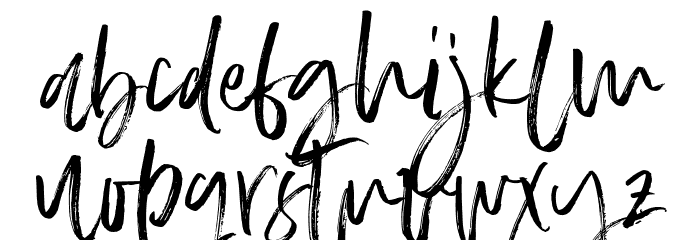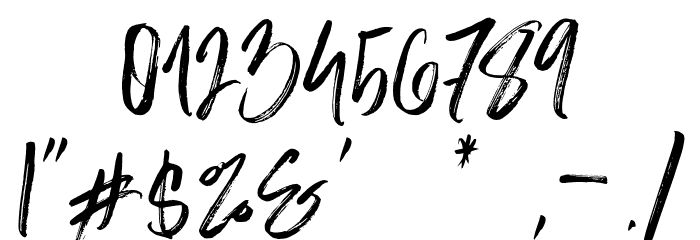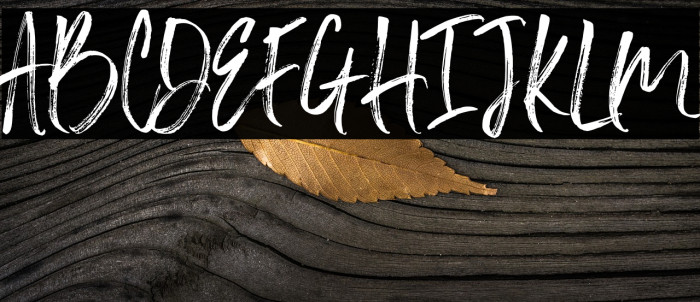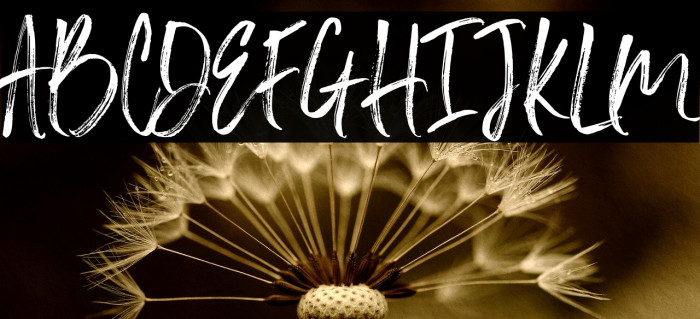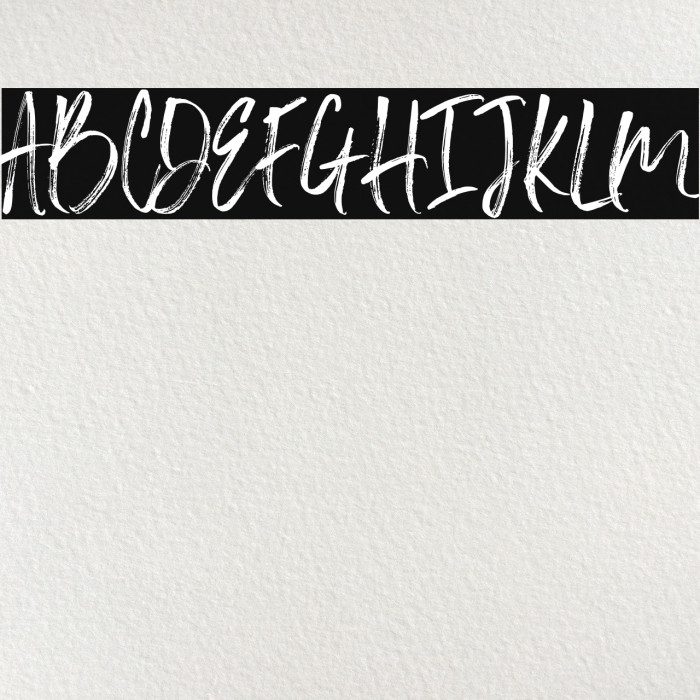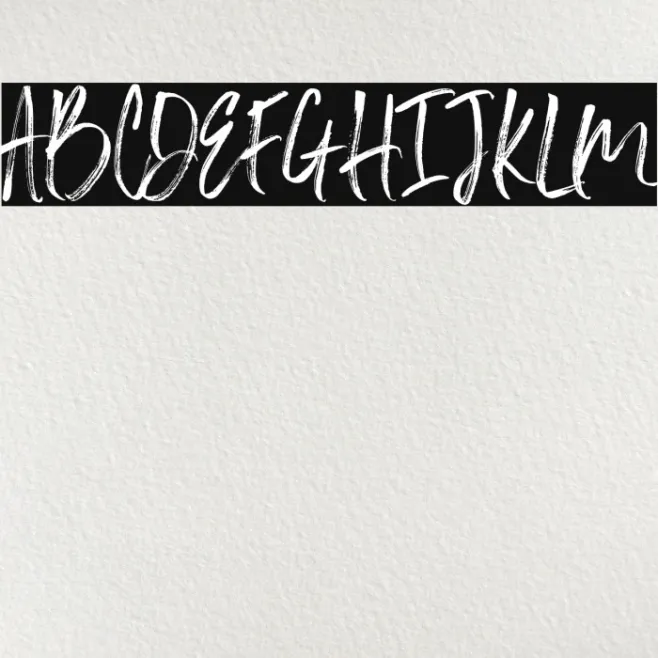
SlaborBrush Font
This font exudes a bold, energetic style with its brush-like strokes and dynamic flow. The characters are crafted with a sense of movement, giving them a lively and expressive appearance. The uppercase and lowercase letters maintain a consistent style, with varying stroke thickness that adds a sense of depth and texture. The numbers and special characters are equally expressive, complementing the alphabet with their artistic flair. This font is perfect for projects that require a personal, handcrafted touch, such as invitations, posters, or branding materials.
A bold, brush-style font with dynamic, expressive strokes.
- Font: SlaborBrush
- Proposed Projects: Ideal for invitations, posters, branding, and any project needing a personal, artistic touch.
- Category: Handwritten
- Use Case: Logos, Headlines, Artistic projects